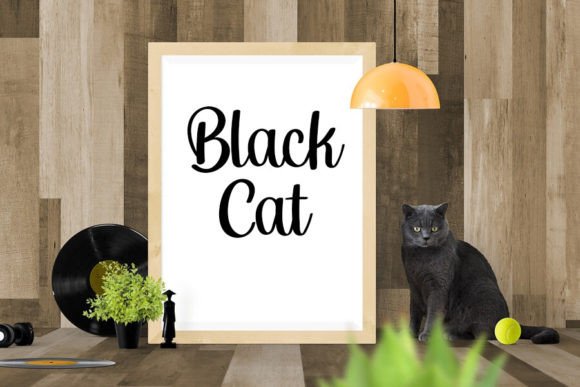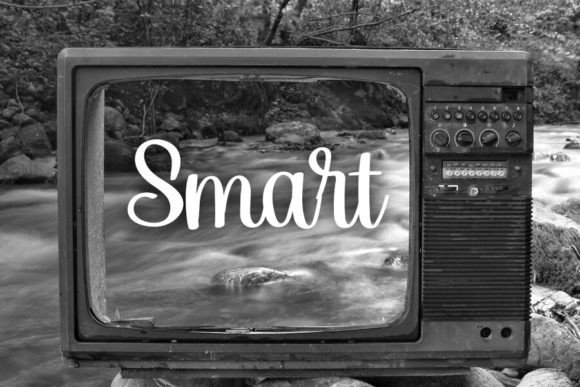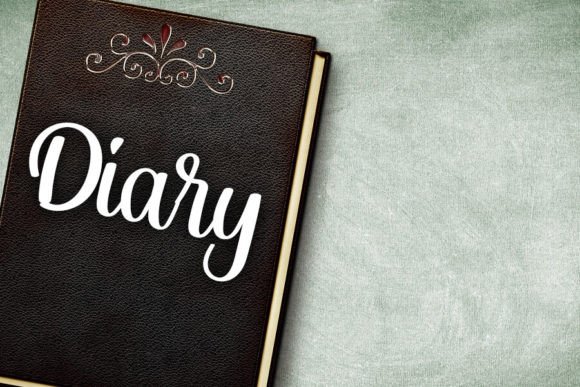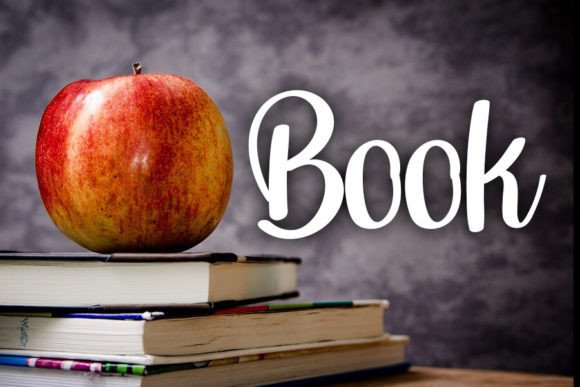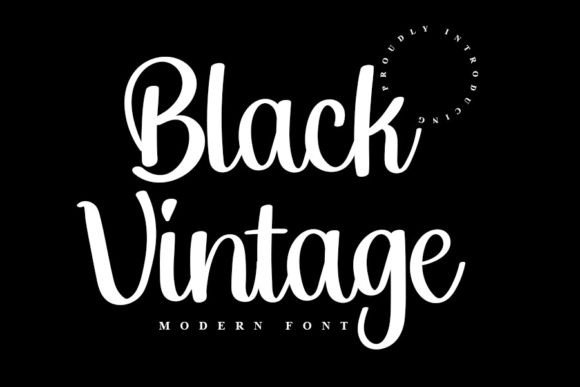
The Power of Black Vintage Font: Elevate Your Designs with a Fresh and Beautiful Typeface
As a designer, I’ve had my fair share of frustrating moments while working on a project. I recall one instance where I was struggling to find the perfect font for a client’s wedding invitation. The design was almost complete, but the font just wasn’t right. That’s when I stumbled upon Black Vintage Font, and it instantly transformed my design. In this article, I’ll share my experience with Black Vintage Font, its features, and how you can make the most of it in your designs.
A Personal Review: What I Love About Black Vintage Font
Black Vintage Font has become a staple in my design toolkit, and here’s why:
- ✨ Fresh and Beautiful Design: The font boasts a unique, elegant look that’s perfect for a wide range of design projects.
- ✅ Versatility: It’s suitable for various applications, including YouTube banners, cover logo mockups, wedding invitations, ID cards, flyers, and crafts.
- ✅ Simplicity and Uniqueness: The font strikes a perfect balance between simplicity and uniqueness, making it easy to read and understand.
While Black Vintage Font is an excellent choice, there are a few minor quirks to be aware of:
- 🤔 Limited Availability of Glyphs: The font may not have an extensive range of glyphs, which could limit its use in certain projects.
- ⚠️ Not Suitable for Body Text: Due to its elegant and cursive nature, Black Vintage Font may not be the best choice for lengthy body text.
The creator of Black Vintage Font drew inspiration from classic typography and vintage designs. The goal was to craft a font that would be both elegant and unique, suitable for a wide range of design applications. The result is a beautiful, fresh font that’s perfect for designers, crafters, and creative hobbyists.
| What type of projects is Black Vintage Font suitable for? | Black Vintage Font is suitable for various projects, including YouTube banners, cover logo mockups, wedding invitations, ID cards, flyers, and crafts. |
| Is Black Vintage Font easy to read? | Yes, Black Vintage Font is designed to be elegant and easy to read, making it perfect for titles, headings, and short text passages. |